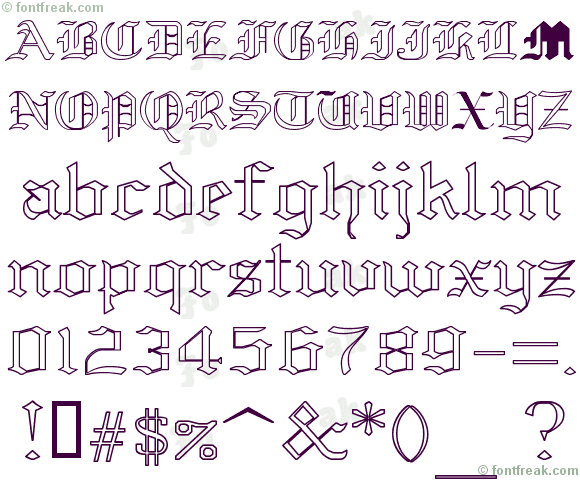
Yold Anglican
About Yold Anglican
Yold Anglican is a beautifully crafted display font designed by Gemfonts, falling within the category of decorative serif typefaces. This font features intricate, ornate detailing that draws inspiration from traditional Anglican script, making it an excellent choice for projects that require a touch of elegance and sophistication. The stroke weight varies gracefully, offering a balance between boldness and lightness, while the contrast adds a refined aesthetic that captures attention. The spacing is generous, allowing for readability while still embracing its decorative nature.
The Yold Anglican font shines in several specific applications. It is particularly well-suited for wedding invitations, where its ornate style can evoke a sense of romance and formality. Additionally, it works wonderfully for movie posters that seek to convey a historical or fantasy theme, adding depth and character to the design. Restaurant menus can also benefit from its distinctive flair, offering diners a glimpse of the culinary experience to come. Furthermore, it can enhance branding materials for boutique businesses aiming to establish a unique identity.
Targeted towards graphic designers, small business owners, and content creators, Yold Anglican appeals to those who wish to make a memorable visual statement. Its unique characteristics allow for creativity while ensuring that the essence of the message remains strong and clear.
What truly sets the Yold Anglican font apart is its ability to blend tradition with modern aesthetics. This font is not just a typeface; it is a work of art that brings a sense of history and elegance to any project. For those seeking a distinctive touch, the Yold Anglican font free download offers an opportunity to elevate designs and captivate audiences.